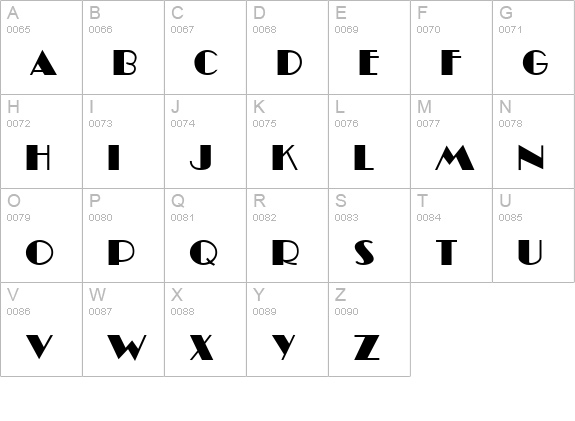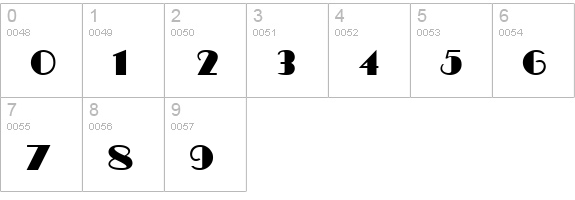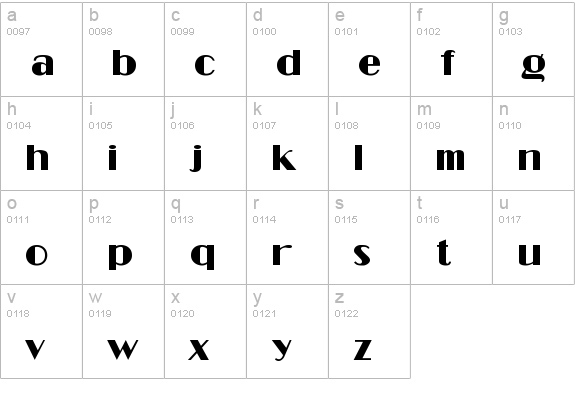
MiamiNig Font Details
MiamiNig font is a modern and stylish typeface that exudes a vibrant and energetic vibe, making it perfect for a wide range of design projects. With its bold and sleek letterforms, this font is sure to make a statement and catch the eye of your audience. Whether you're designing a poster, logo, or social media graphics, MiamiNig font will add a touch of sophistication and flair to your work. What's even better is that MiamiNig font is available for free download at FontsMarket.com. You can easily access this versatile and eye-catching font to enhance your design projects without any cost. Don't miss out on the opportunity to elevate your designs with MiamiNig font today!